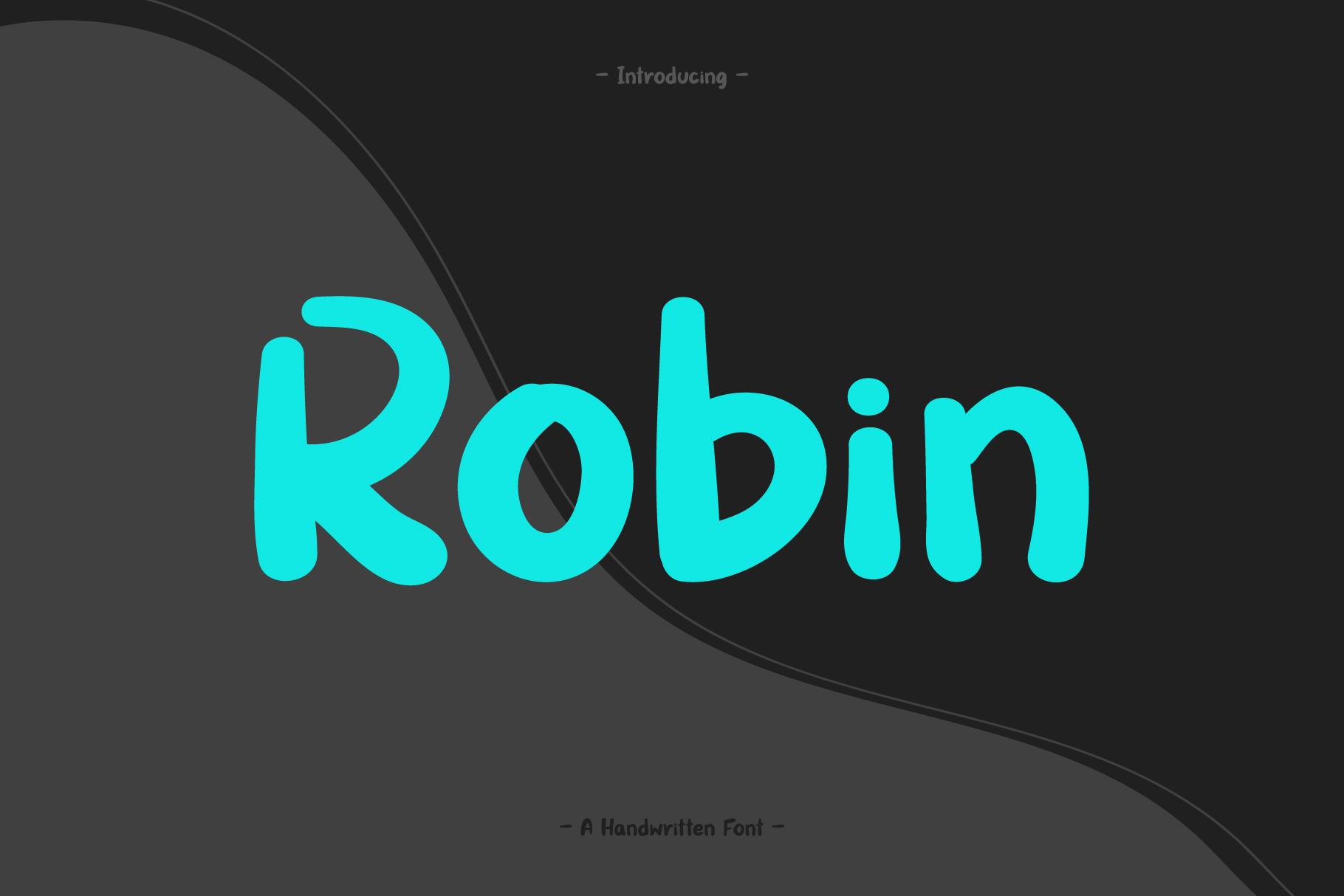
Robin Font Description
Robin is a cute and fun handwritten font, carefully handcrafted to become a true favorite. Its casual charm makes it appear wonderfully down-to-earth, readable and, ultimately, incredibly versatile. Robin will look outstanding in any context, whether it’s being used on busy backgrounds or as a standalone headline!